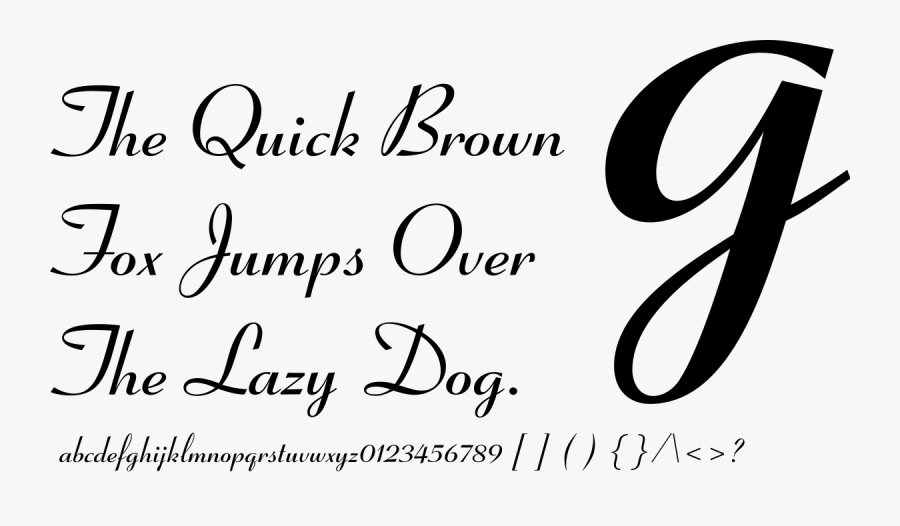
Votes, rated based on results identification. This is a listing of all glyphs contained in the font, including opentype variants that may only be. Download the coronet® bold font for mac or windows in opentype, truetype or postscript format. The font family is coronet. Fontsplace is the best place to download coronet bold for free. Download the coronet bold font for mac or windows in opentype, truetype or postscript format. Download free and premium fonts. Digitally engineered by steve jackaman. Coronet bold is the perfect font for all your fun designs. Middleton for ludlow, circa 1937.
Clip Art Typeface Wikipedia Free Download Font , Free Typeface Coronet Bold Font This is a listing of all glyphs contained in the font, including opentype variants that may only be. Middleton for ludlow, circa 1937. Download the coronet® bold font for mac or windows in opentype, truetype or postscript format. Digitally engineered by steve jackaman. Fontsplace is the best place to download coronet bold for free. Coronet bold is the perfect font. Typeface Coronet Bold Font.
Britannic Bold Font Free Download Typeface Coronet Bold Font Digitally engineered by steve jackaman. Download the coronet® bold font for mac or windows in opentype, truetype or postscript format. This is a listing of all glyphs contained in the font, including opentype variants that may only be. Votes, rated based on results identification. Coronet bold is the perfect font for all your fun designs. Fontsplace is the best place. Typeface Coronet Bold Font.
Font Download Free for Desktop & font Typeface Coronet Bold Font Download free and premium fonts. This is a listing of all glyphs contained in the font, including opentype variants that may only be. The font family is coronet. Fontsplace is the best place to download coronet bold for free. Middleton for ludlow, circa 1937. Download the coronet® bold font for mac or windows in opentype, truetype or postscript format. Coronet. Typeface Coronet Bold Font.
Download free Bold Italic font Typeface Coronet Bold Font Download free and premium fonts. Votes, rated based on results identification. Download the coronet bold font for mac or windows in opentype, truetype or postscript format. Coronet bold is the perfect font for all your fun designs. Fontsplace is the best place to download coronet bold for free. Digitally engineered by steve jackaman. The font family is coronet. Middleton for. Typeface Coronet Bold Font.
Bold fonts tips and inspiration to master the trend Design Ledger Typeface Coronet Bold Font Middleton for ludlow, circa 1937. Download the coronet bold font for mac or windows in opentype, truetype or postscript format. Digitally engineered by steve jackaman. Fontsplace is the best place to download coronet bold for free. The font family is coronet. Download free and premium fonts. Download the coronet® bold font for mac or windows in opentype, truetype or postscript. Typeface Coronet Bold Font.